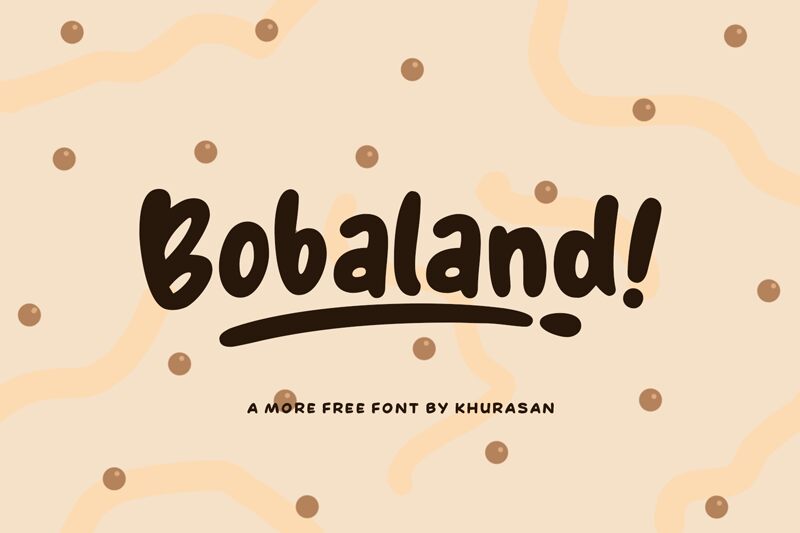
Bobaland
Bobaland, the bold and playful display font designed by Khurasan, brings a sense of fun and vibrancy to your projects. With its cartoon-inspired style, this font is perfect for children's books, animated films, and toy packaging. Its bold weight adds impact to logos, headlines, and poster designs. Whether you're creating a whimsical website or designing eye-catching advertisements, Bobaland will infuse your projects with a delightful charm that captivates audiences of all ages. Let Bobaland transport you to a world where imagination knows no bounds!